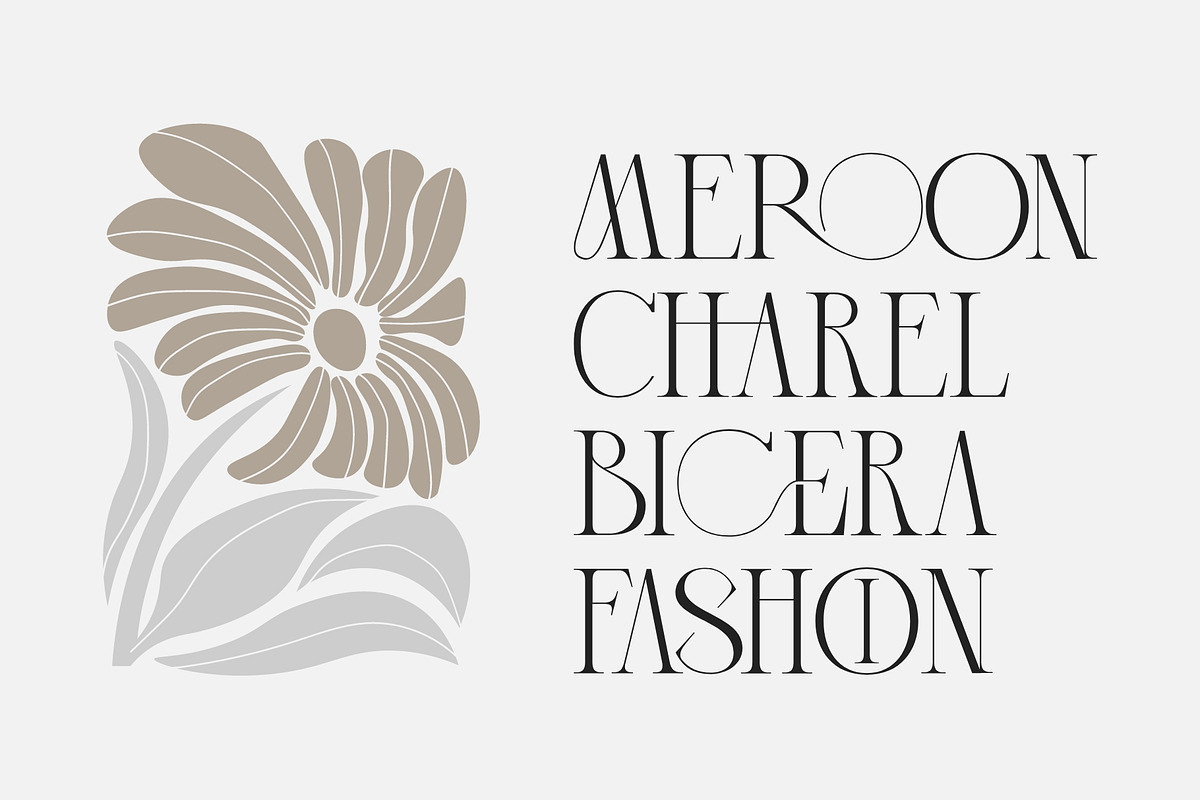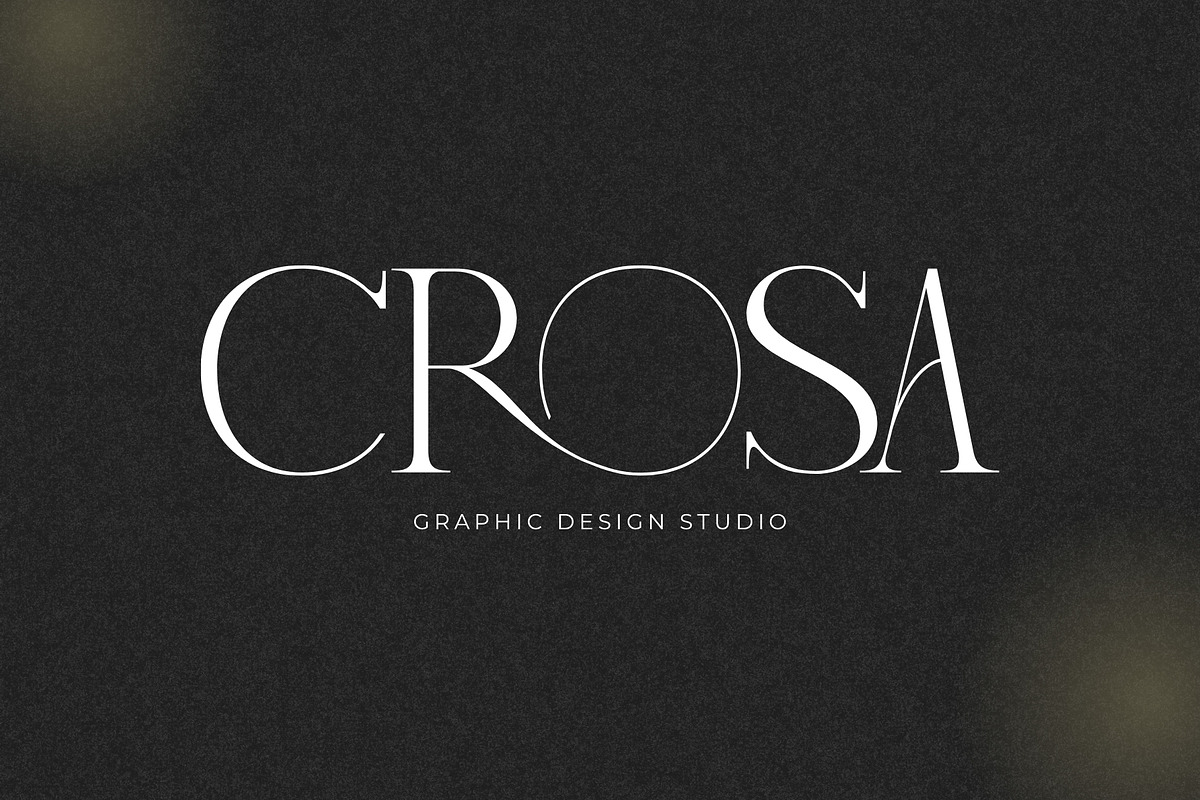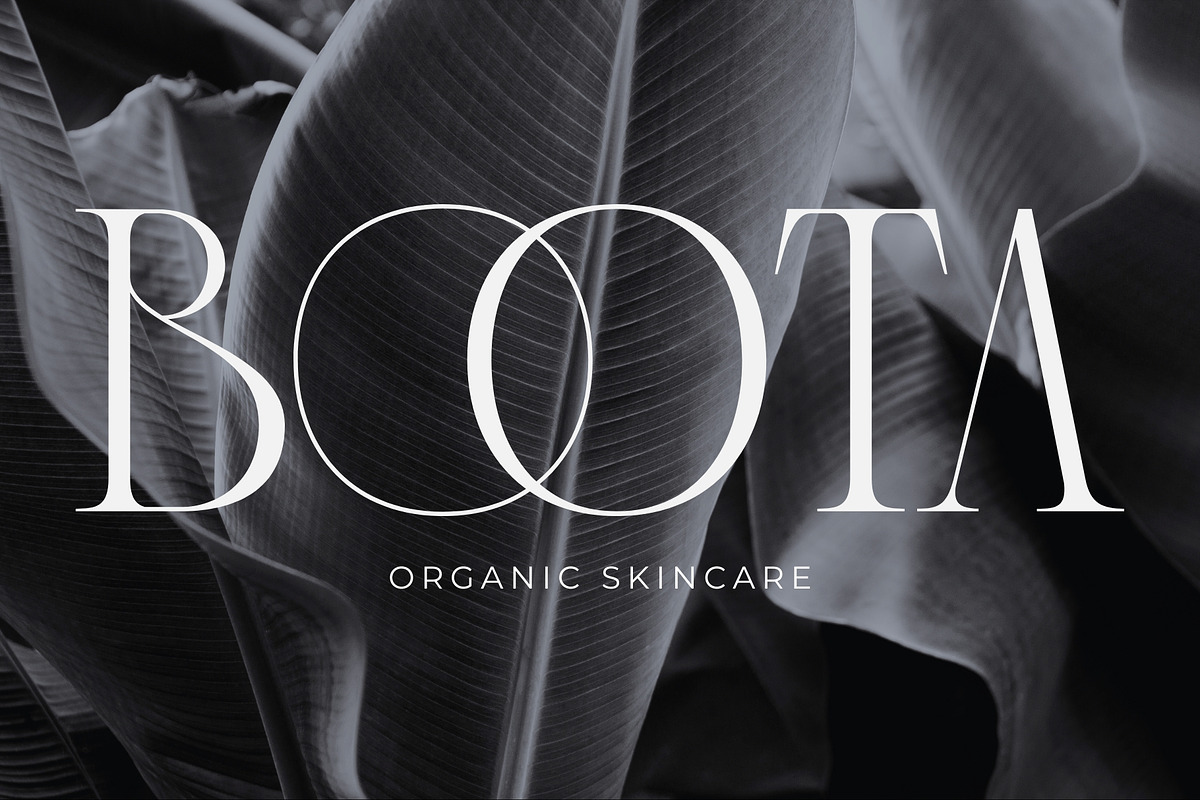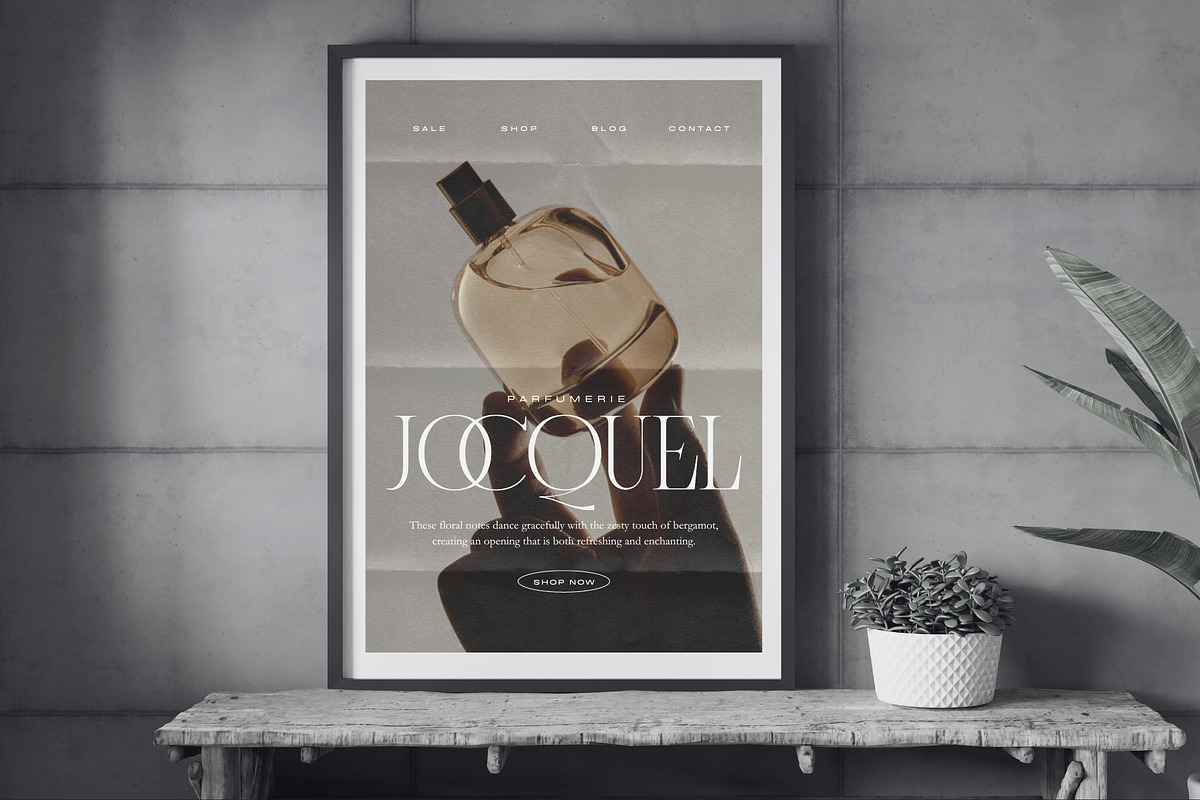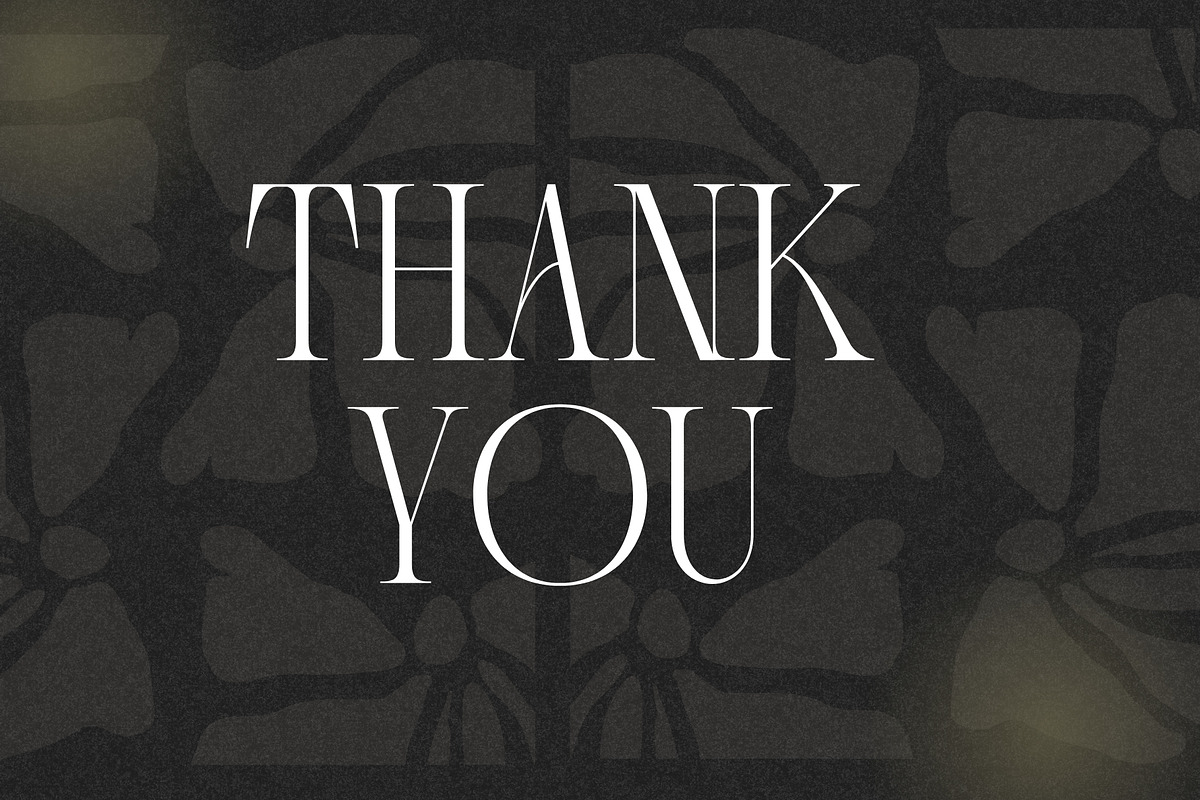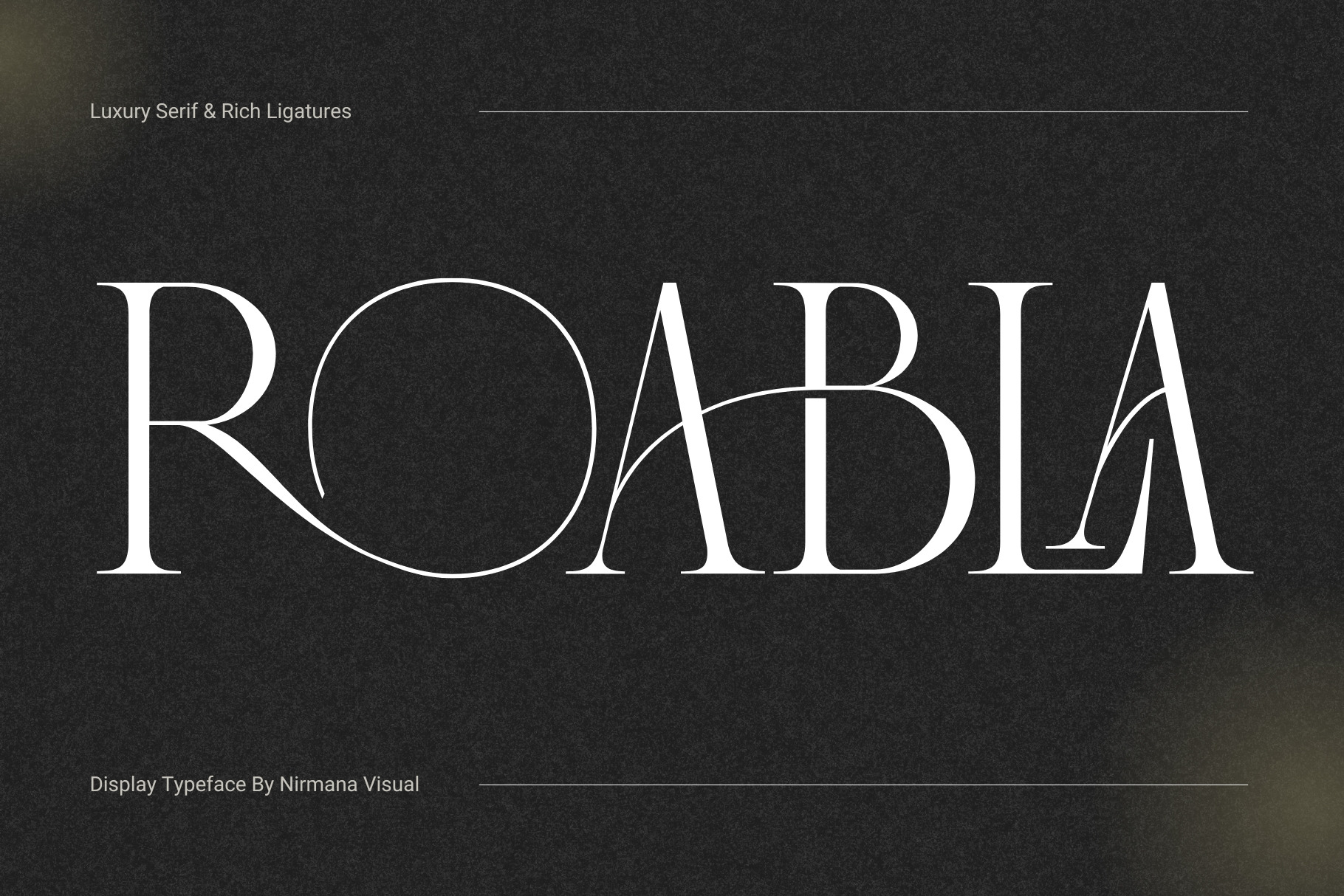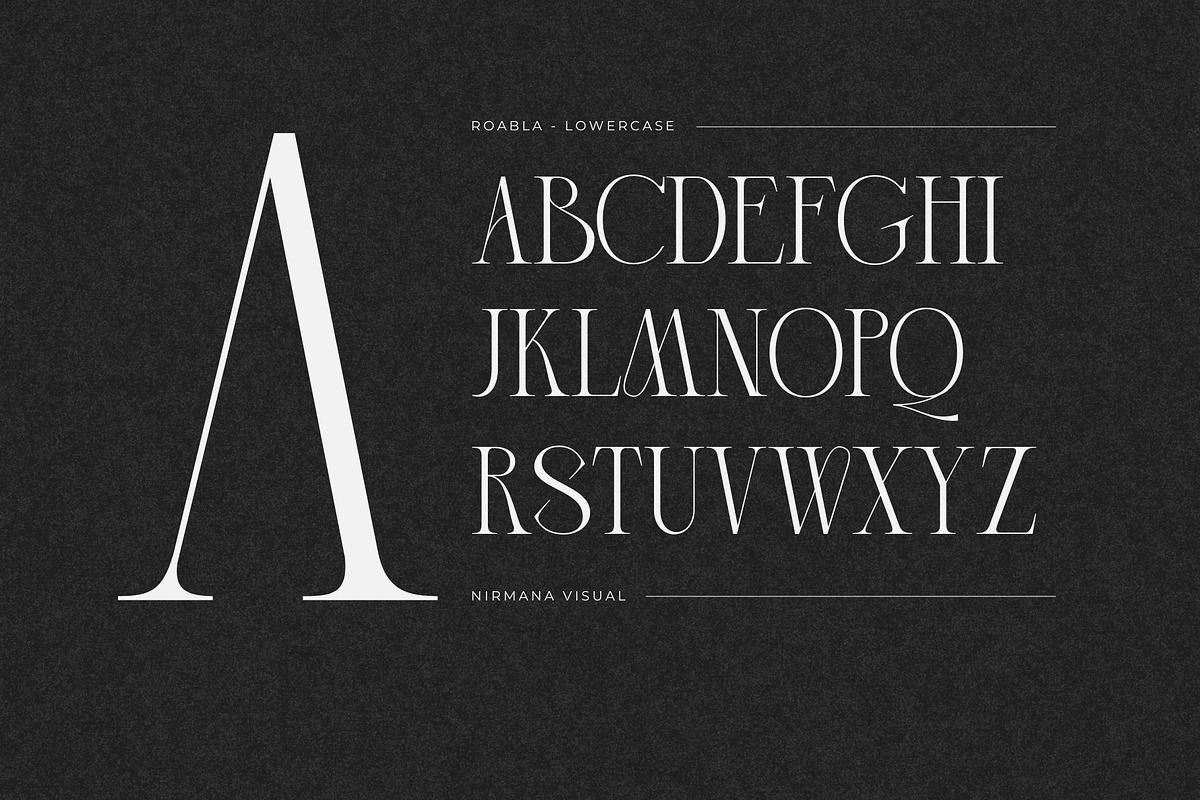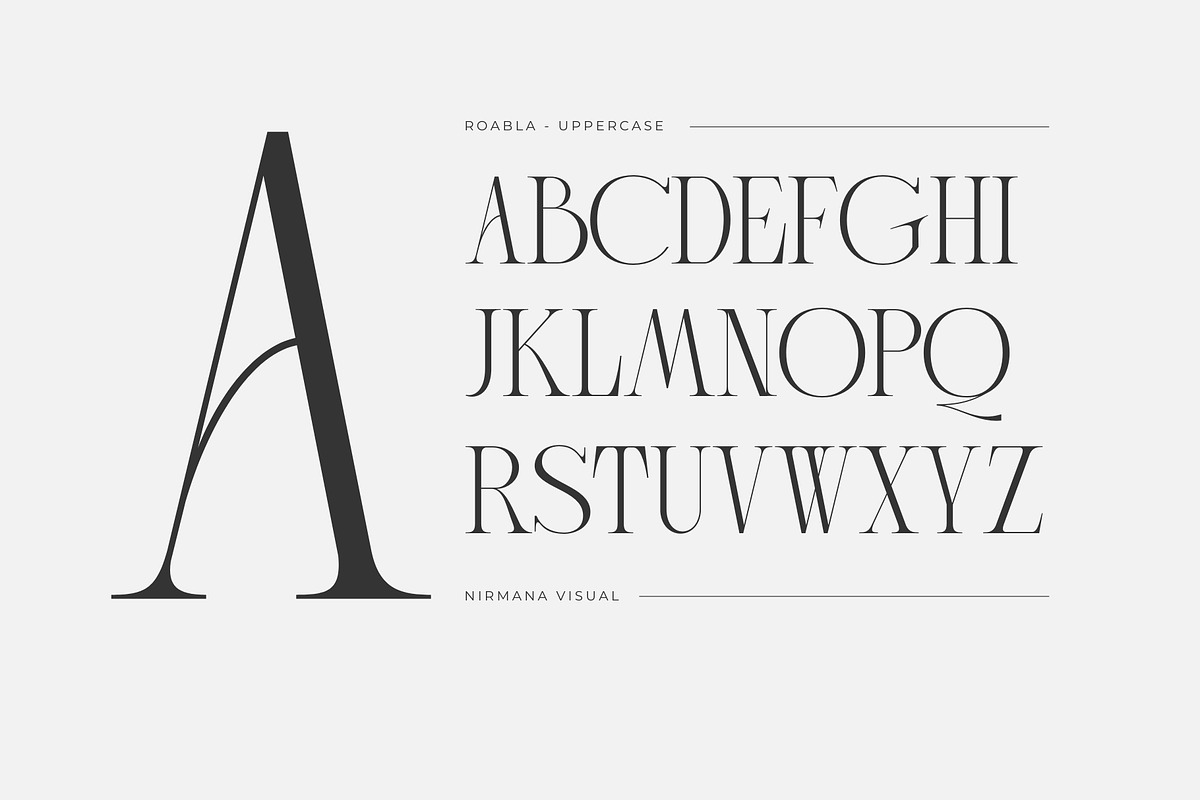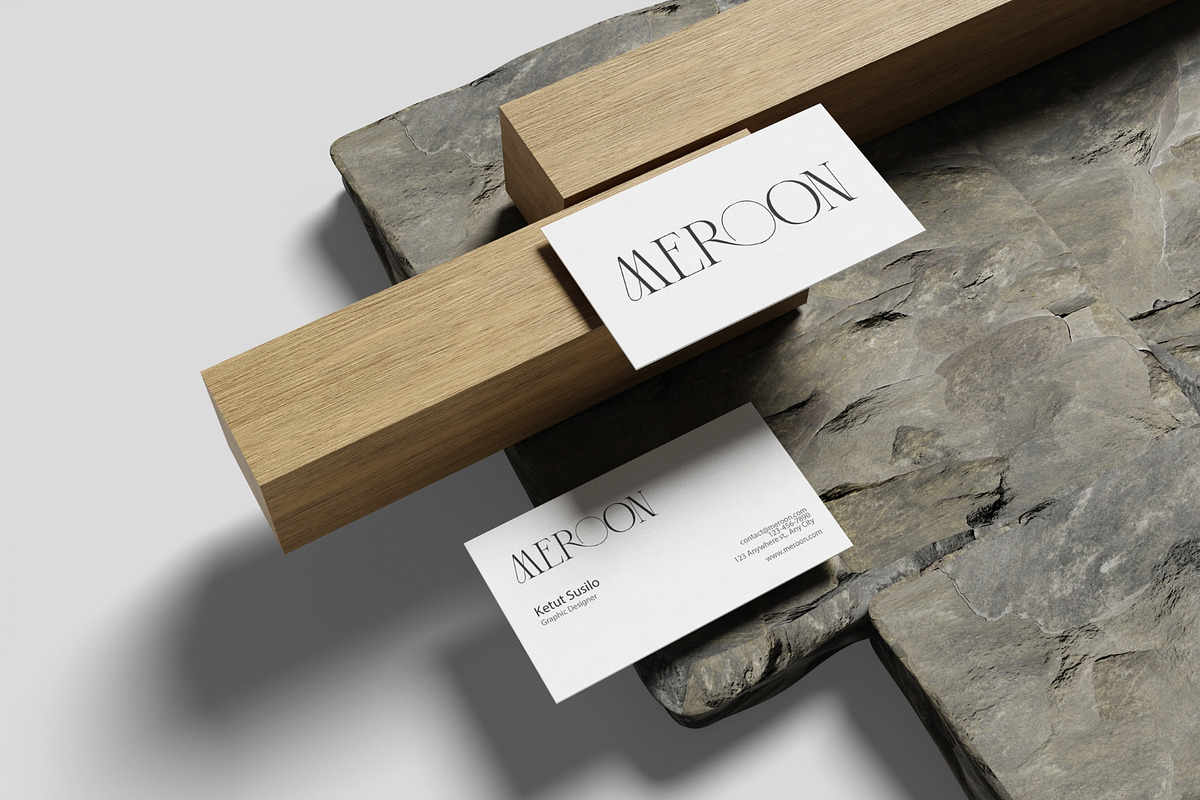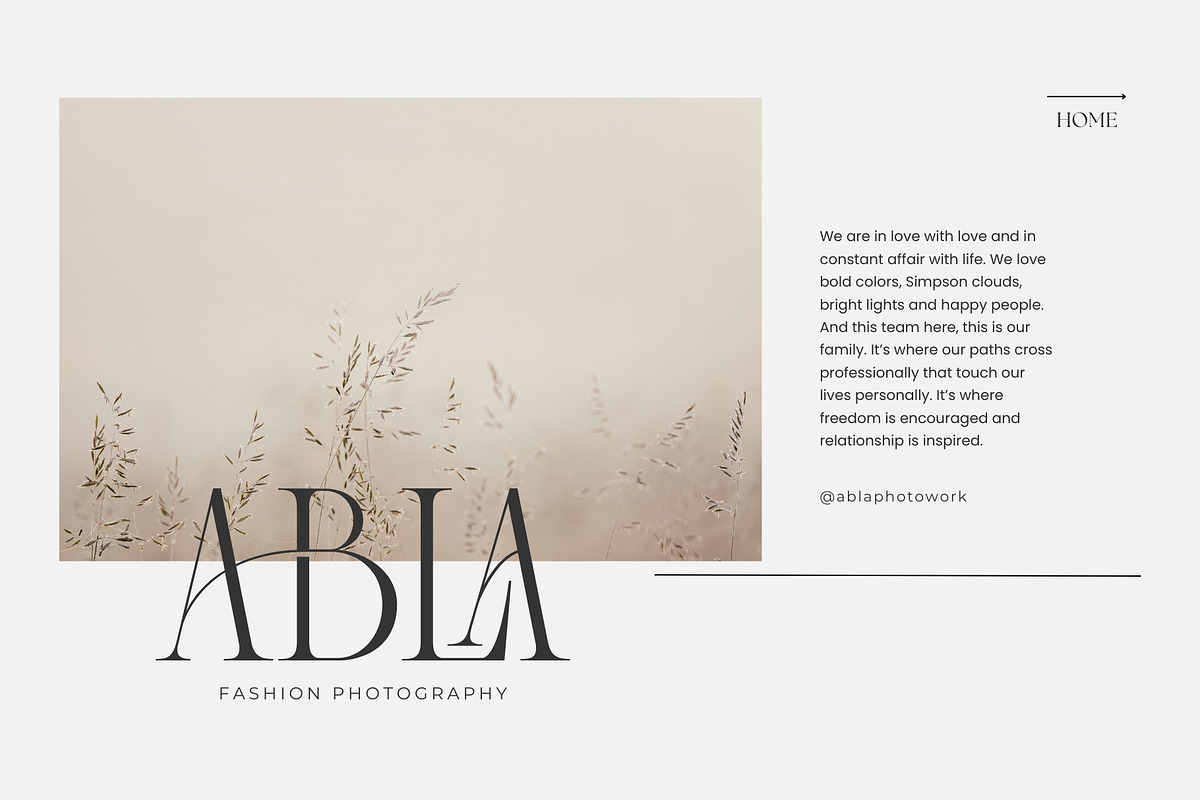
Roabla - Modern Ligature Font
Roabla offers beautiful typographic harmony for a diversity of design projects, including logos & branding, social media posts, advertisements & product designs.